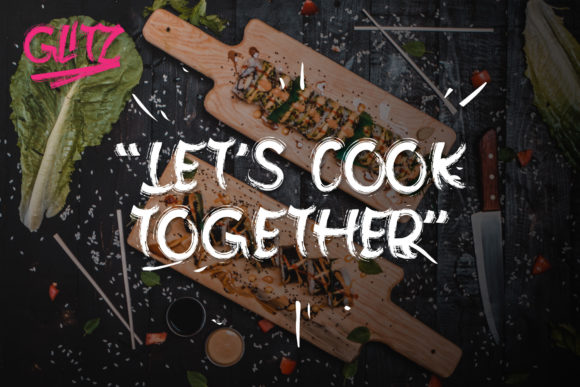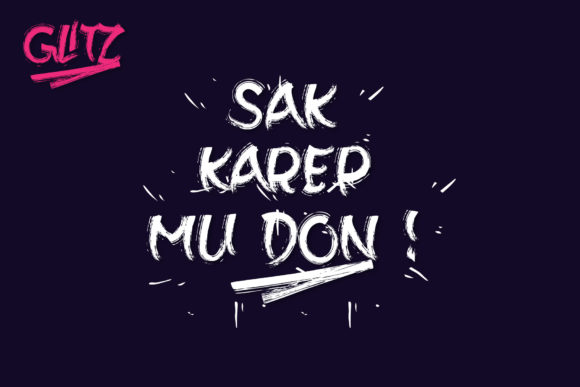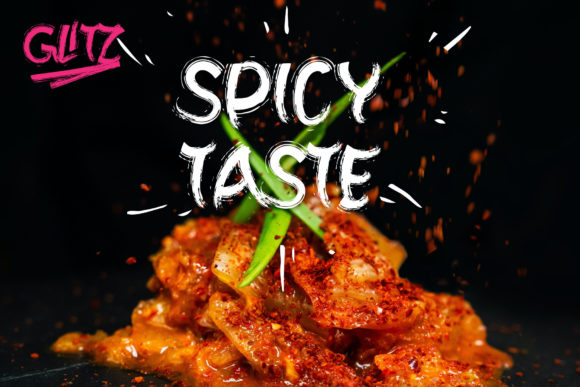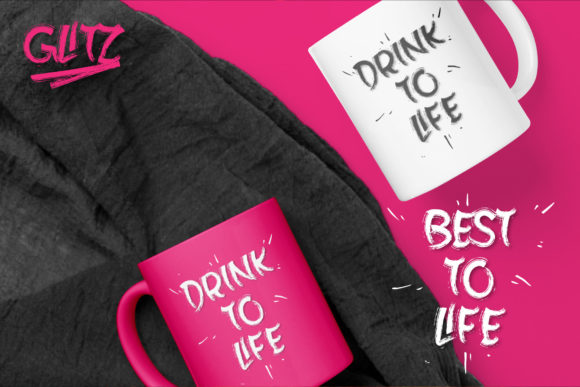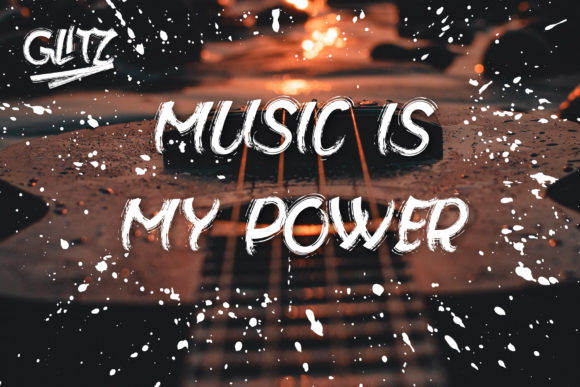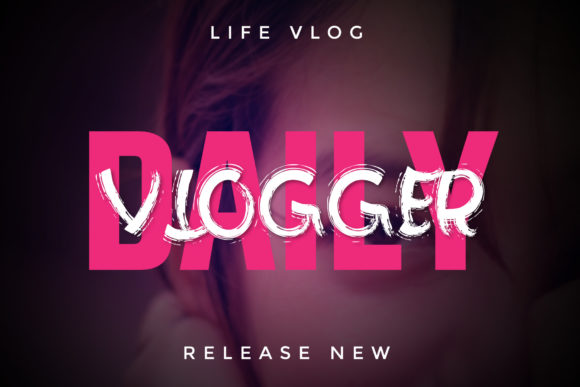
Introducing Glitz Font: The Ultimate Street-Style Display Font for Designers and Crafters
Are you tired of using the same old fonts in your designs? Do you want to add a touch of edginess and coolness to your projects? Look no further than Glitz Font, a brushed, street-styled display font that’s perfect for designers and crafters alike. In this article, we’ll dive into the features and benefits of Glitz Font, and explore how it can elevate your designs to the next level.
What is Glitz Font?
Glitz Font is a unique and stylish display font that’s inspired by the streets. Its cool, brushed texture gives it a laid-back, urban feel that’s perfect for designs that need a bit of attitude. Whether you’re working on a logo, a poster, or a social media graphic, Glitz Font is sure to make a statement.
PUA Encoding: What Does it Mean?
One of the standout features of Glitz Font is its PUA (Private Use Area) encoding. But what does that mean, exactly? In simple terms, PUA encoding allows you to access all of the glyphs and swashes in the font with ease. This means that you can create complex, layered designs without having to worry about compatibility issues or tedious workarounds.
For designers and crafters, PUA encoding is a game-changer. It gives you the freedom to experiment with different combinations of glyphs and swashes, allowing you to create truly unique and eye-catching designs. Whether you’re a seasoned pro or just starting out, Glitz Font’s PUA encoding makes it easy to get creative and push the boundaries of what’s possible.
Features and Benefits of Glitz Font
So what makes Glitz Font so special? Here are just a few of its key features and benefits:
- Cool, brushed texture: Glitz Font’s street-styled texture gives it a laid-back, urban feel that’s perfect for designs that need a bit of attitude.
- PUA encoding: With PUA encoding, you can access all of the glyphs and swashes in the font with ease, giving you the freedom to create complex, layered designs.
- Perfect for designers and crafters: Whether you’re a seasoned pro or just starting out, Glitz Font is perfect for designers and crafters who want to add a touch of edginess to their designs.
How to Use Glitz Font in Your Designs
So how can you use Glitz Font in your designs? Here are a few ideas to get you started:
- Logos and branding: Use Glitz Font to create a bold, eye-catching logo that’s sure to make a statement.
- Posters and flyers: Add a touch of edginess to your posters and flyers with Glitz Font’s cool, brushed texture.
- Social media graphics: Use Glitz Font to create eye-catching social media graphics that are sure to grab attention.
- Crafting projects: Glitz Font is perfect for crafters who want to add a touch of personality to their projects, from scrapbooking to card-making.